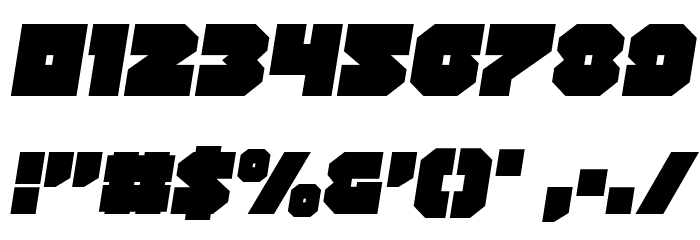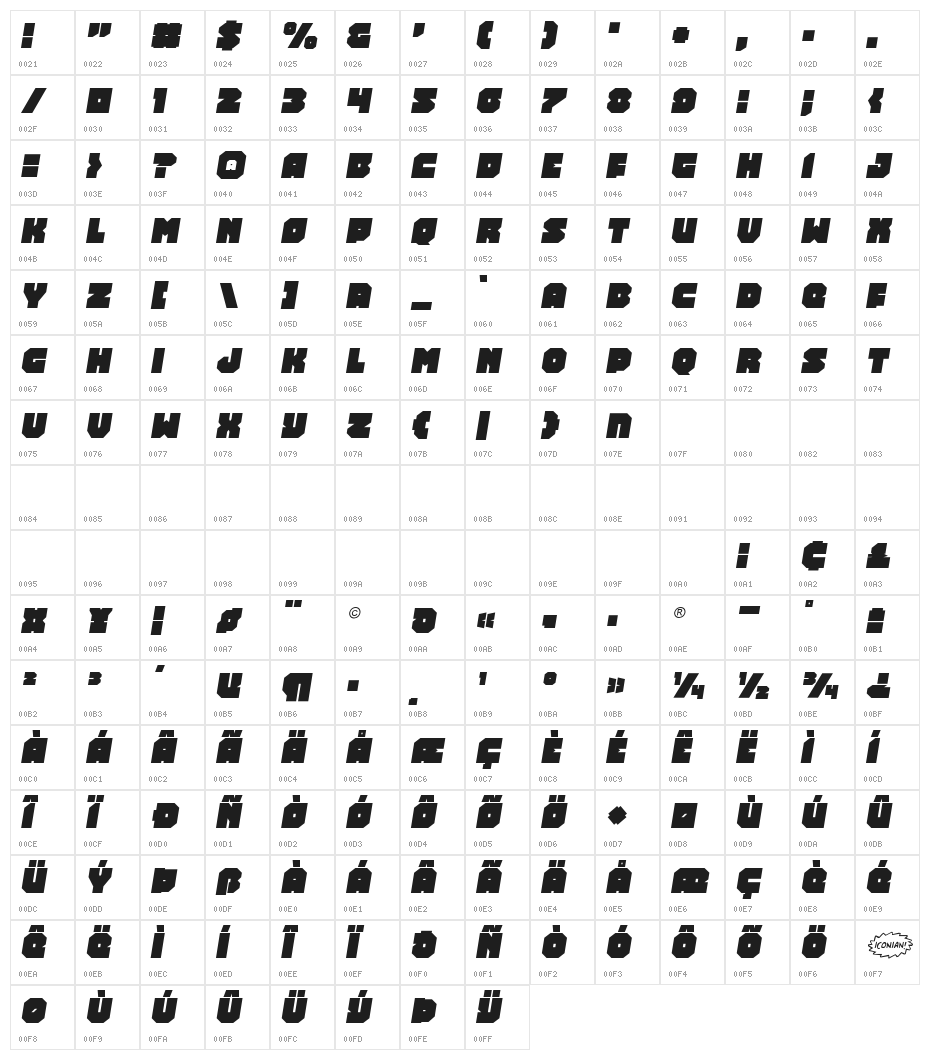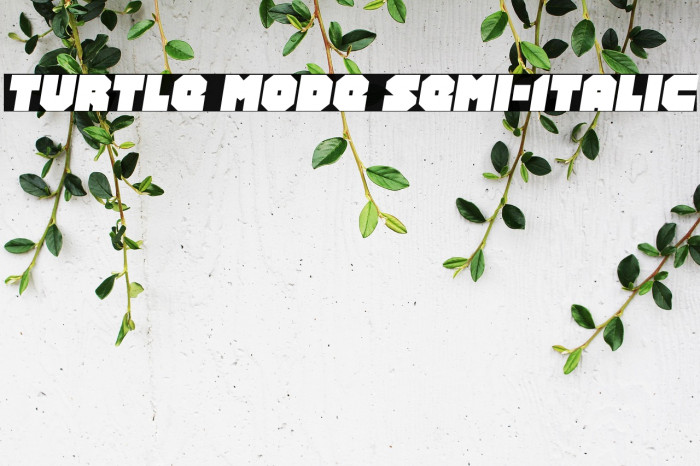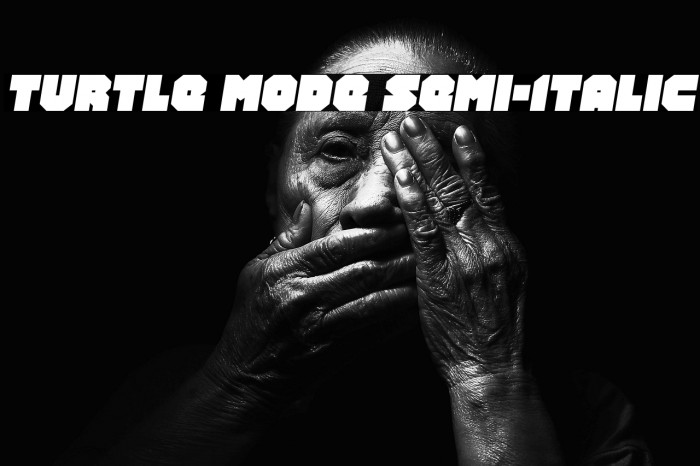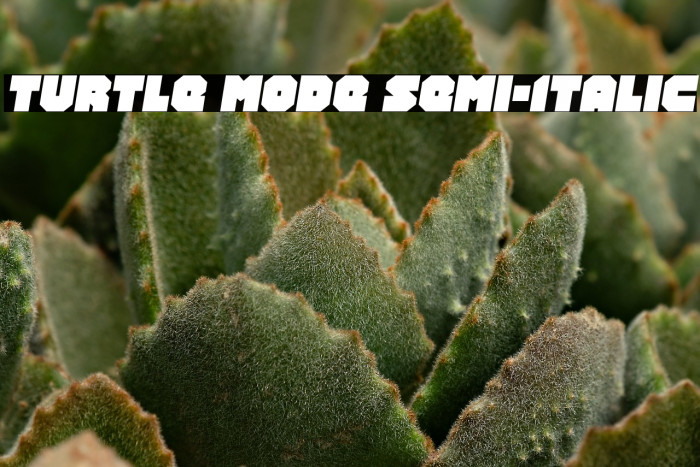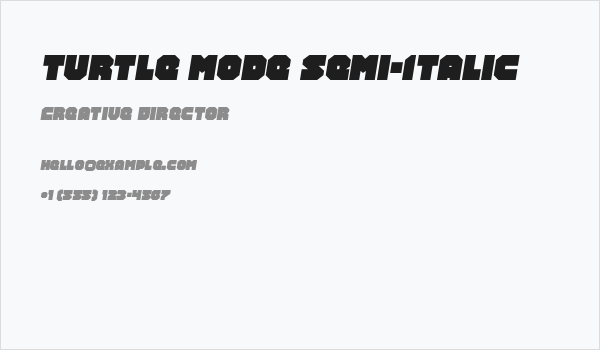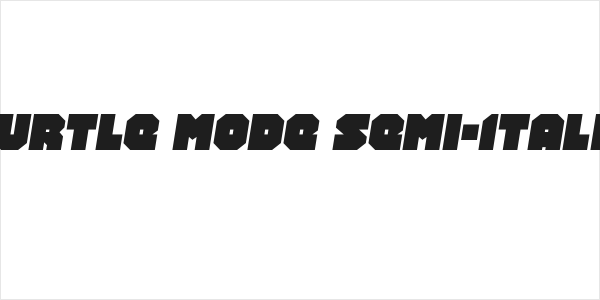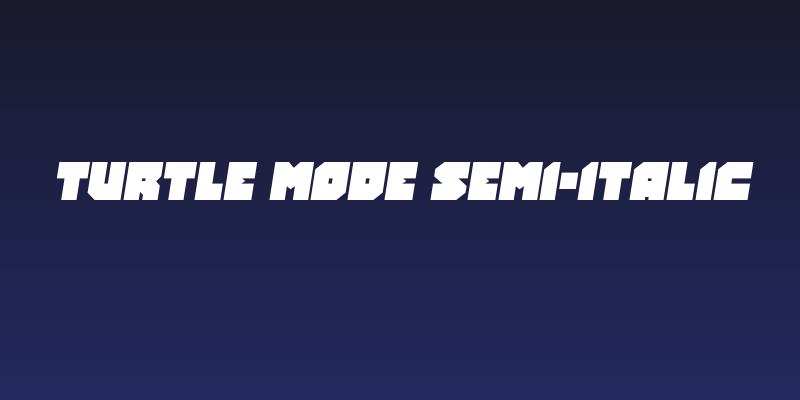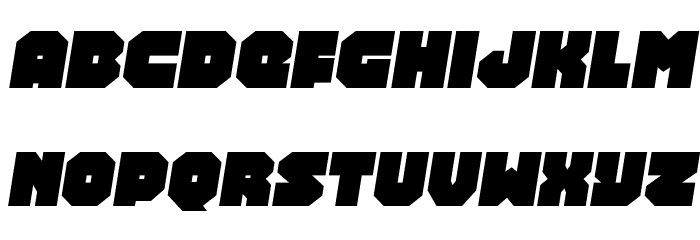
Turtle Mode Semi-Italic Font
Turtle Mode Semi-Italic Description
This font features a bold and angular design, characterized by its sharp edges and geometric shapes. The letters are heavily stylized, with a blocky appearance that gives them a strong, impactful presence. The uppercase and lowercase letters maintain a consistent style, with the lowercase mirroring the uppercase in form. Numbers and special characters follow the same design principles, ensuring uniformity across all glyphs. The font's semi-italic slant adds a dynamic feel, enhancing its modern and futuristic aesthetic. Its distinct style makes it suitable for attention-grabbing headlines and logos.